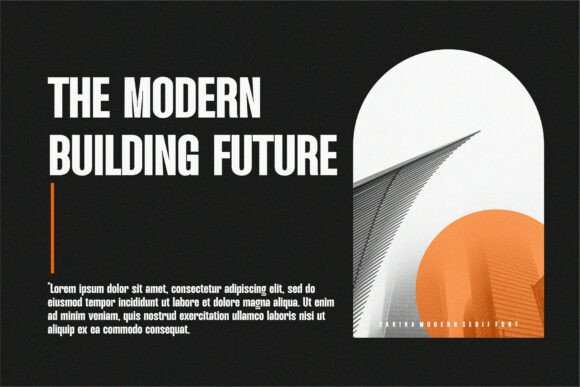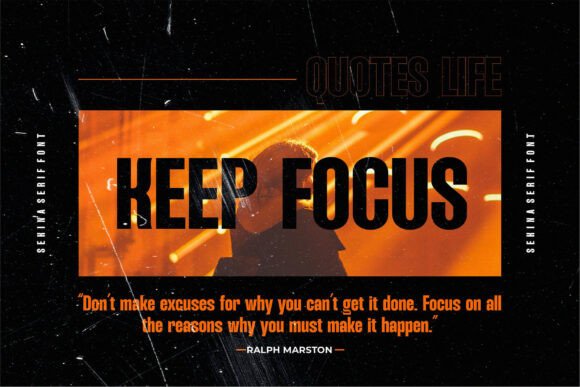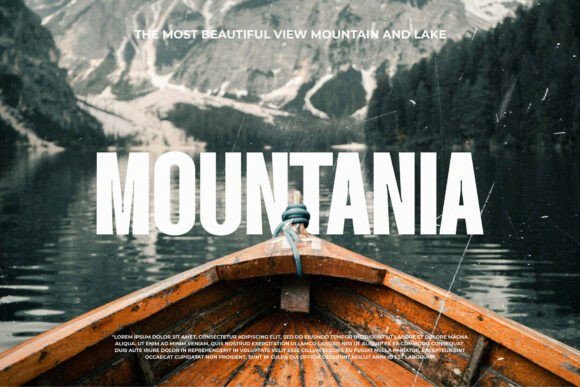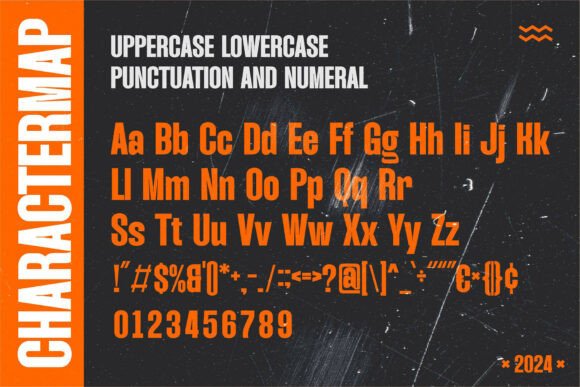
Introduction to Sekina Font
Sekina is a modern and neat sans serif font designed for clarity and versatility.
Its clean lines and balanced proportions make it perfect for branding, web design, and editorial use With a sleek, minimalist aesthetic, this typeface brings a fresh, professional feel to any project.